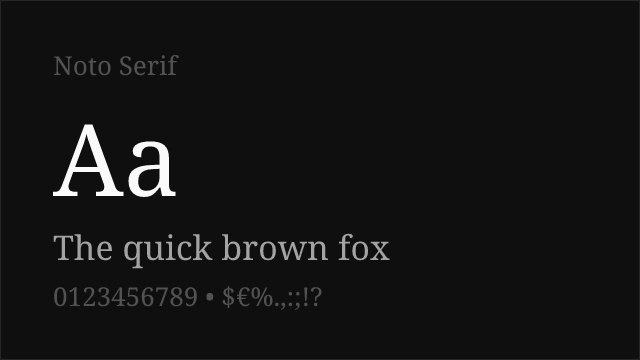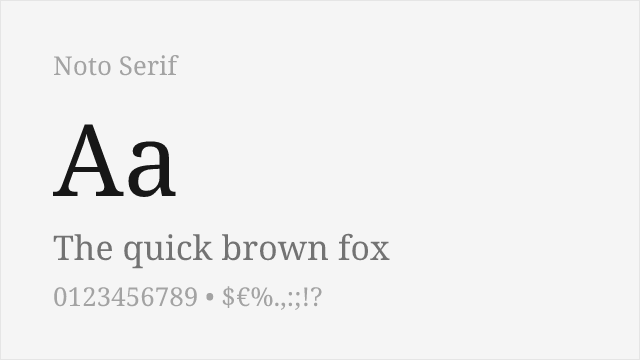
Free Alternatives to Garamond with Editorial Style
Garamond is known for its editorial aesthetic. If you're looking for a free serif font with a similar editorial feel, these 6 alternatives offer comparable characteristics. We've identified 6 that are especially well-suited for this context. All are available under open-source licenses for unrestricted commercial use.
Old-style-inspired serif for on-screen reading, with optical sizes
Why it matches: Newsreader is a serif built for on-screen editorial reading, drawing on old-style models close to Garamond's lineage. It brings a warm, literary texture with optical sizing, so it holds Garamond's reading-serif spirit while being engineered for long articles on the web.
Exceptional revival based on Claude Garamont's original 16th-century designs
Why it matches: EB Garamond is the most faithful open-source Garamond revival available, based on original 16th-century specimens from the Plantin-Moretus Museum. Both share the characteristic old-style proportions, gentle bracketed serifs, moderate x-height, and the warm humanist qualities that define classic Garamond. The scholarly accuracy of EB Garamond makes it virtually interchangeable with Adobe Garamond for book design and editorial applications.
Adobe's open-source transitional serif, versatile for text and screen
Why it matches: Source Serif is Adobe's own open-source text serif. It leans more transitional than old-style, but it shares Garamond's job — comfortable, even-textured reading at length. It is cleaner and more neutral than a true Garamond, which makes it a dependable, license-free choice for documents and screens.
Google pan-Unicode serif with variable weight and width
Why it matches: Noto Serif is Google's pan-Unicode workhorse: a neutral, sturdy serif that shares Garamond's bracketed-serif structure without its Renaissance character. Its value is coverage and consistency — if a project spans many languages and scripts, Noto Serif keeps a Garamond-adjacent serif texture everywhere.
Old-style book serif in the Garamond tradition, built for reading
Why it matches: Crimson Pro is an old-style serif drawn explicitly in the tradition of the Garalde faces that Garamond defined — gentle bracketed serifs, moderate contrast, a calm humanist rhythm made for long reading. It is a touch more contemporary and even than Garamond, but for book and editorial text it hits the same warm, classical register.
More decorative interpretation with higher contrast for display use
Why it matches: Cormorant Garamond reinterprets the Garamond aesthetic with increased stroke contrast and refined details optimized for display typography. While sharing the essential Garamond DNA—graceful curves, classical proportions, and elegant character—Cormorant adds dramatic flair that makes it stunning at large sizes. It's ideal when you want Garamond sophistication with more visual impact for headlines and titles.